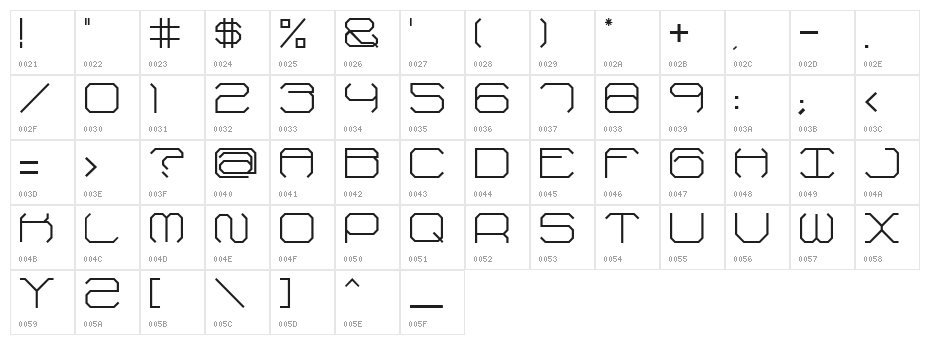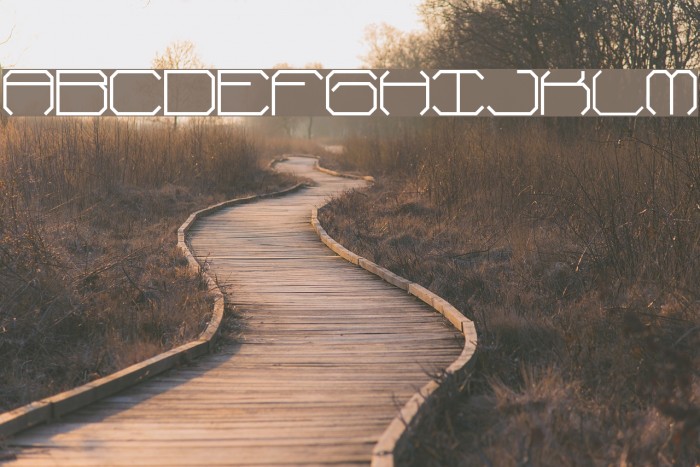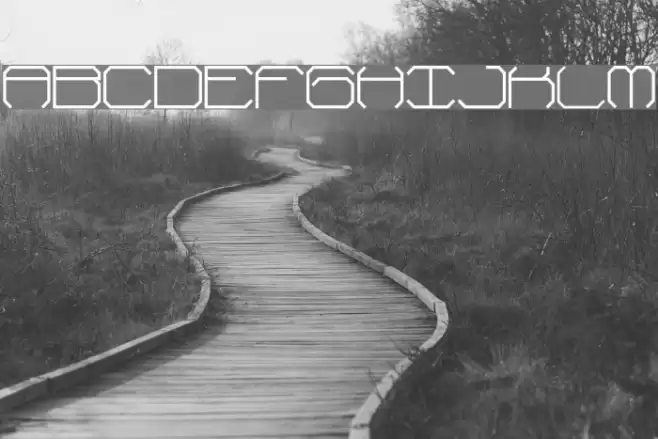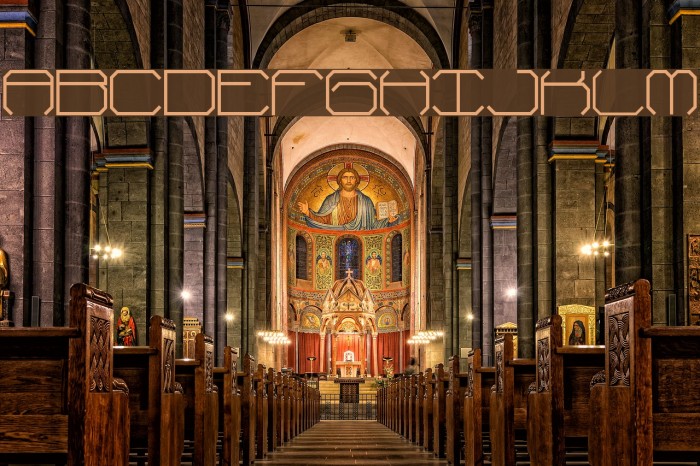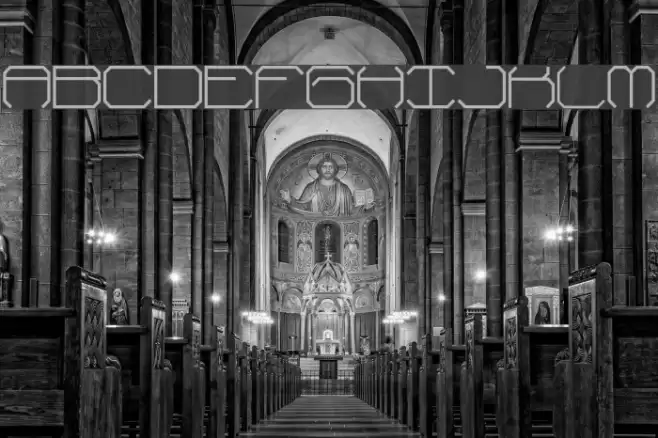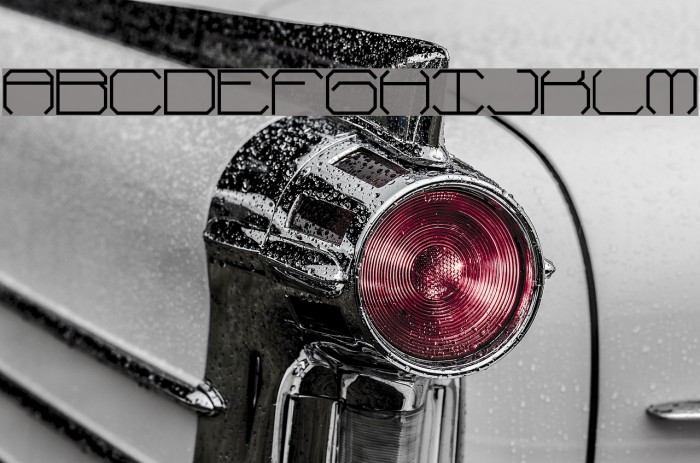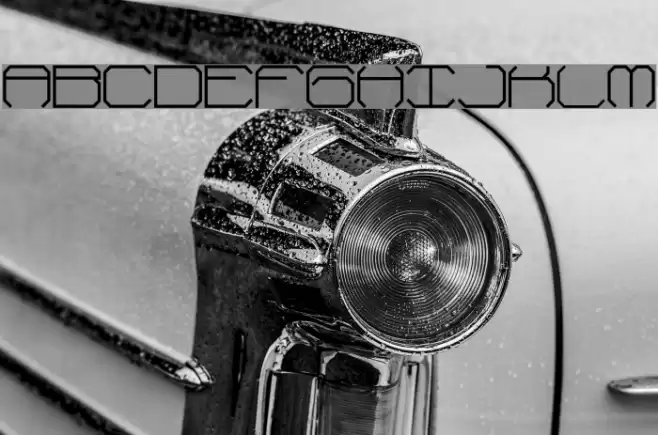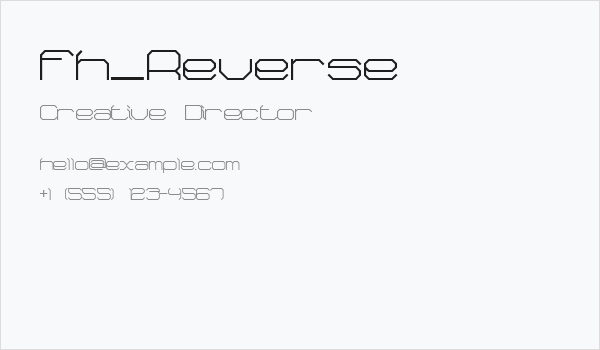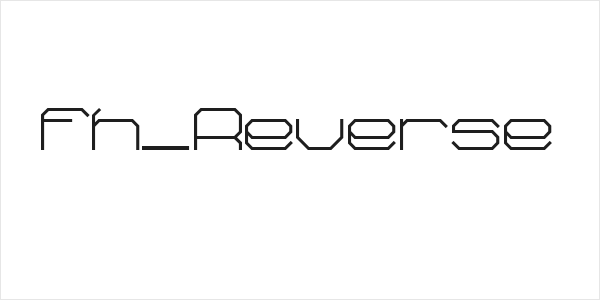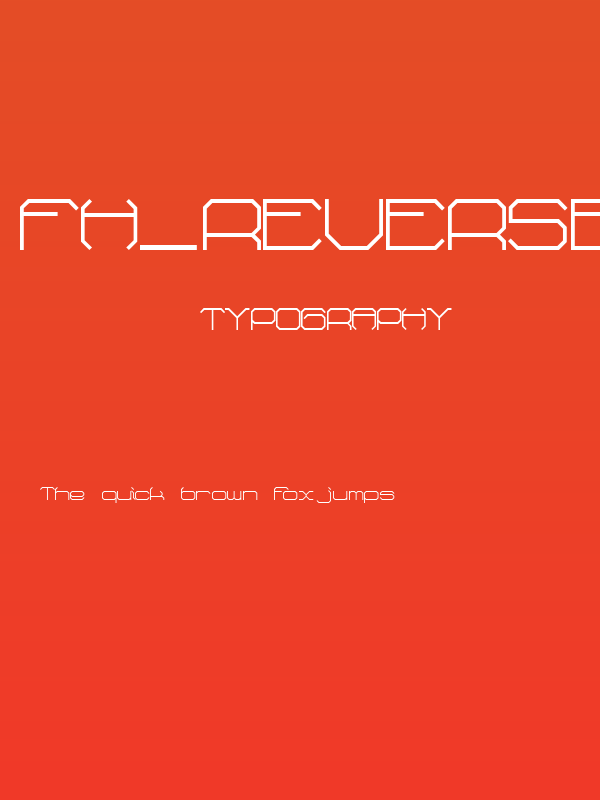
Fh_Reverse Font
Fh_Reverse Description
This font features a geometric and angular design, characterized by its sharp edges and distinct, futuristic appearance. The characters are constructed with straight lines and acute angles, creating a sense of precision and modernity. The uppercase and lowercase letters maintain a consistent style, with a uniform height and width that contribute to its structured look. The numerals and special characters follow the same design principles, ensuring a cohesive visual identity across all glyphs. This font's unique style makes it stand out, offering a bold statement in any design project.
| Proposed Projects | Ideal for technology branding, sci-fi themed projects, modern posters, and digital interfaces. |